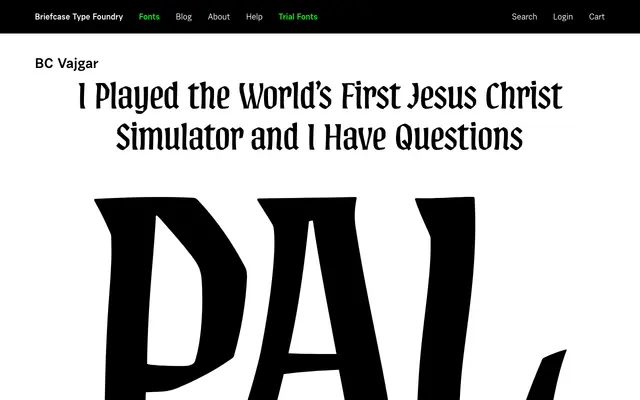
A serif typeface from the Czech Briefcase Type Foundry, sitting within a portfolio of historically grounded text faces.
BC Vajgar is part of Briefcase Type Foundry's range of serif typefaces, a Czech foundry known for text-oriented designs rooted in Central European typographic tradition. The page provides limited detail on weights or styles. It sits alongside related releases including BC Figural, BC Monument, BC Parlament and BC Unciala.
Briefcase Type Foundry is a Czech foundry with a strong tradition of serif typefaces; BC Vajgar fits within their portfolio of text-oriented serif designs, likely a transitional or humanist serif given the foundry's Czech typographic heritage.